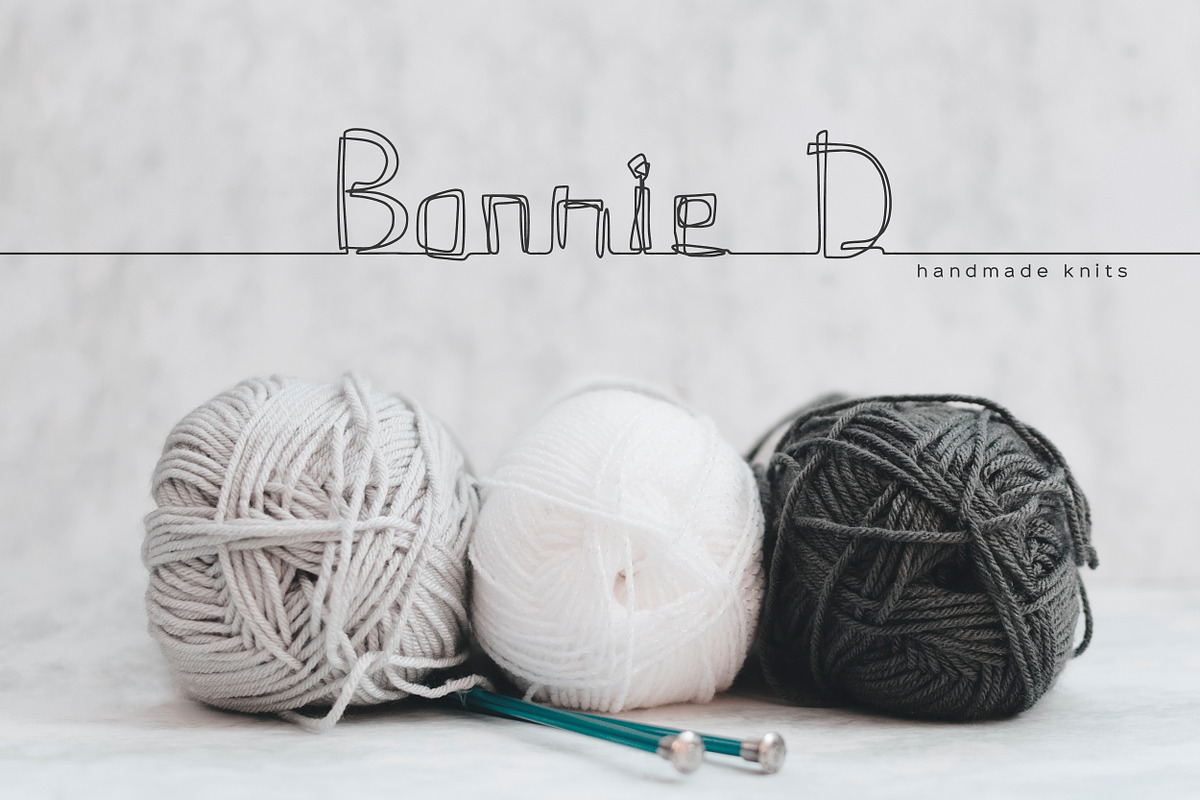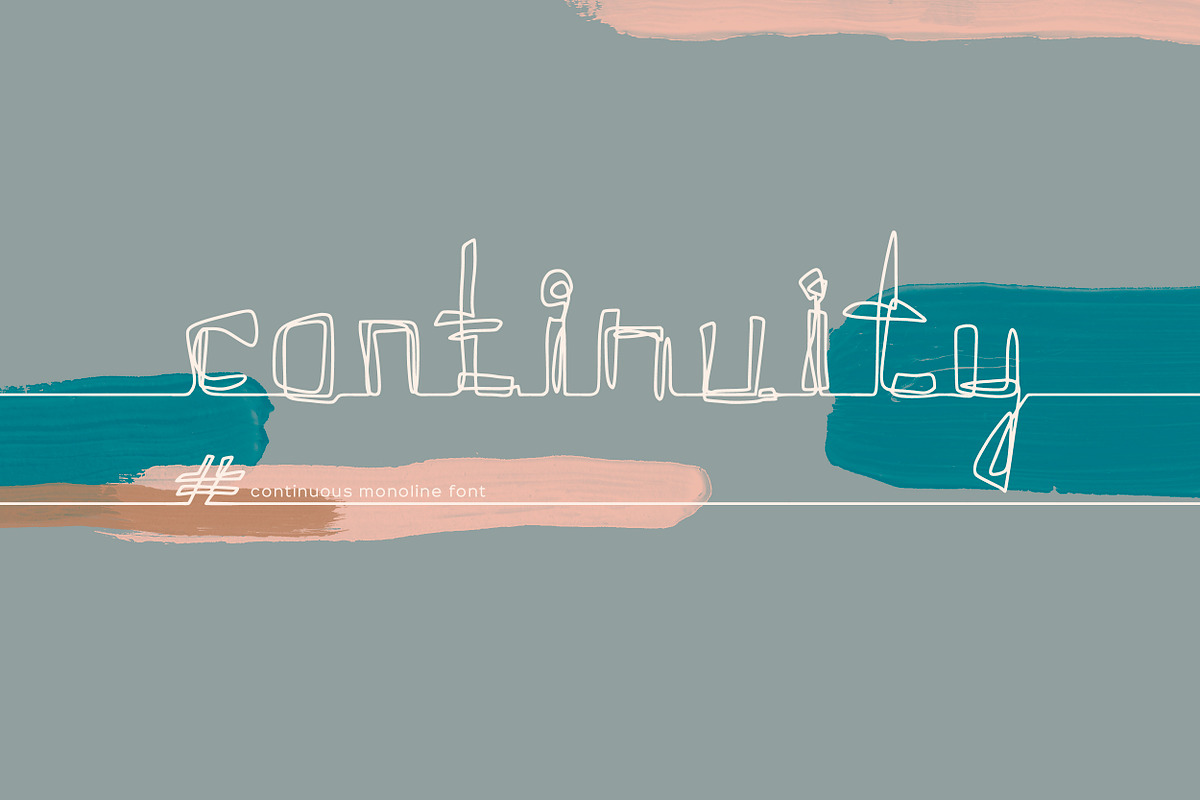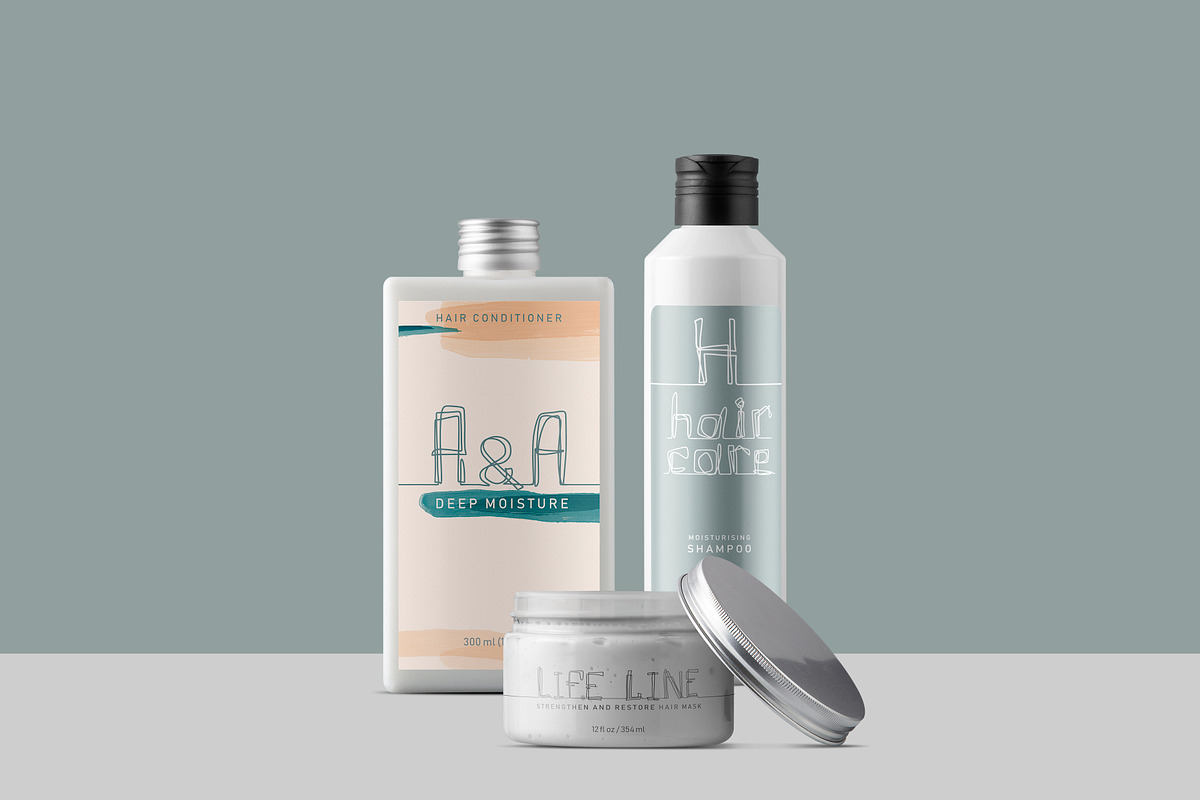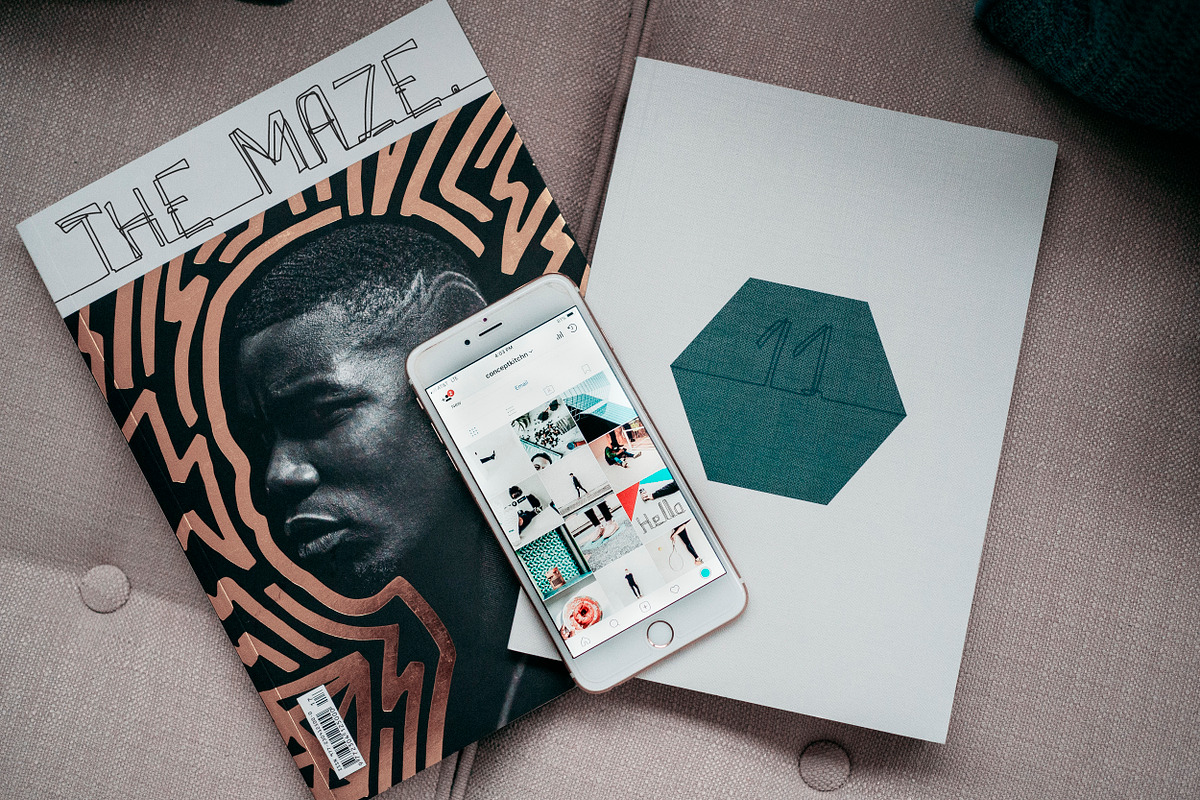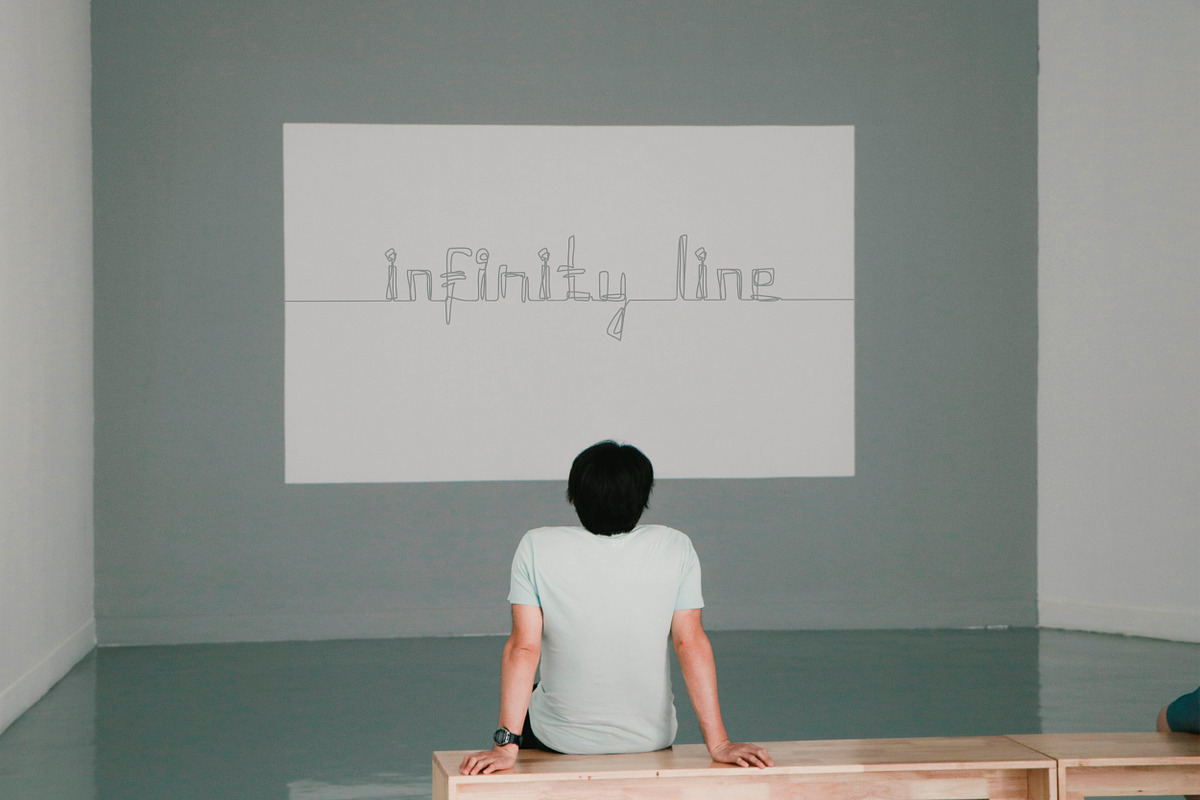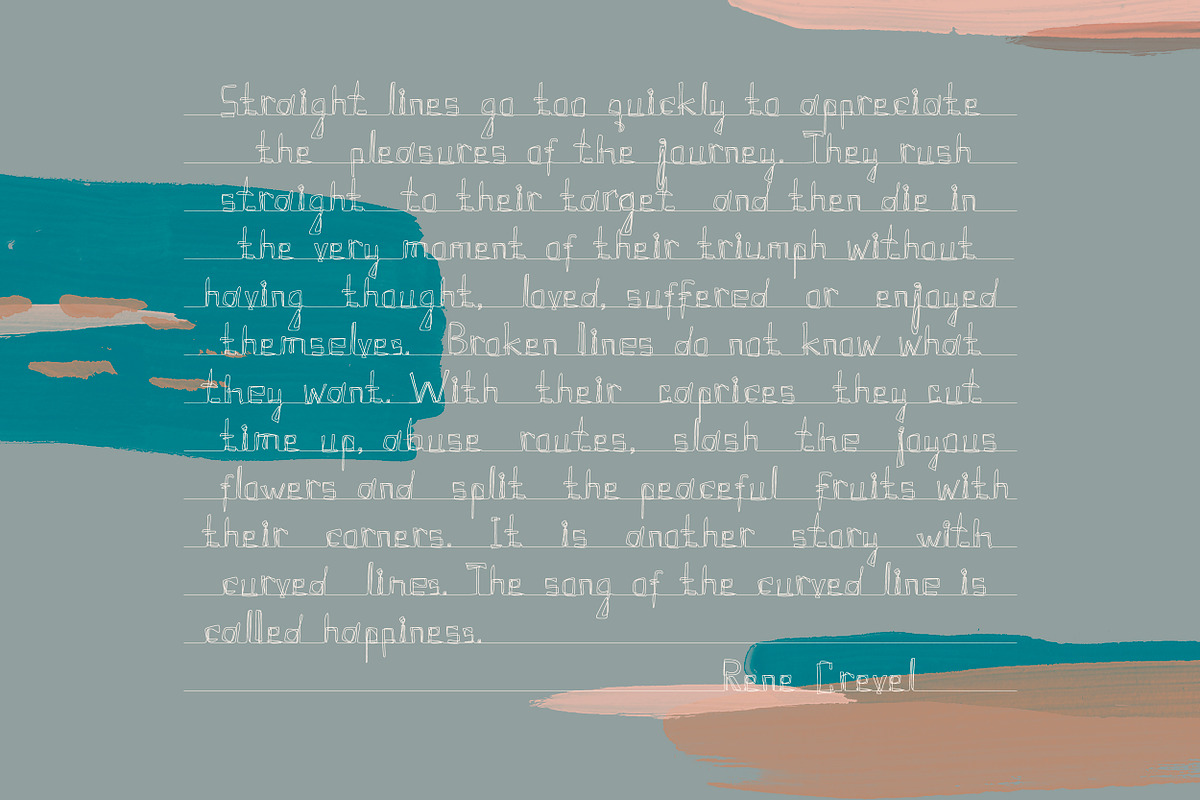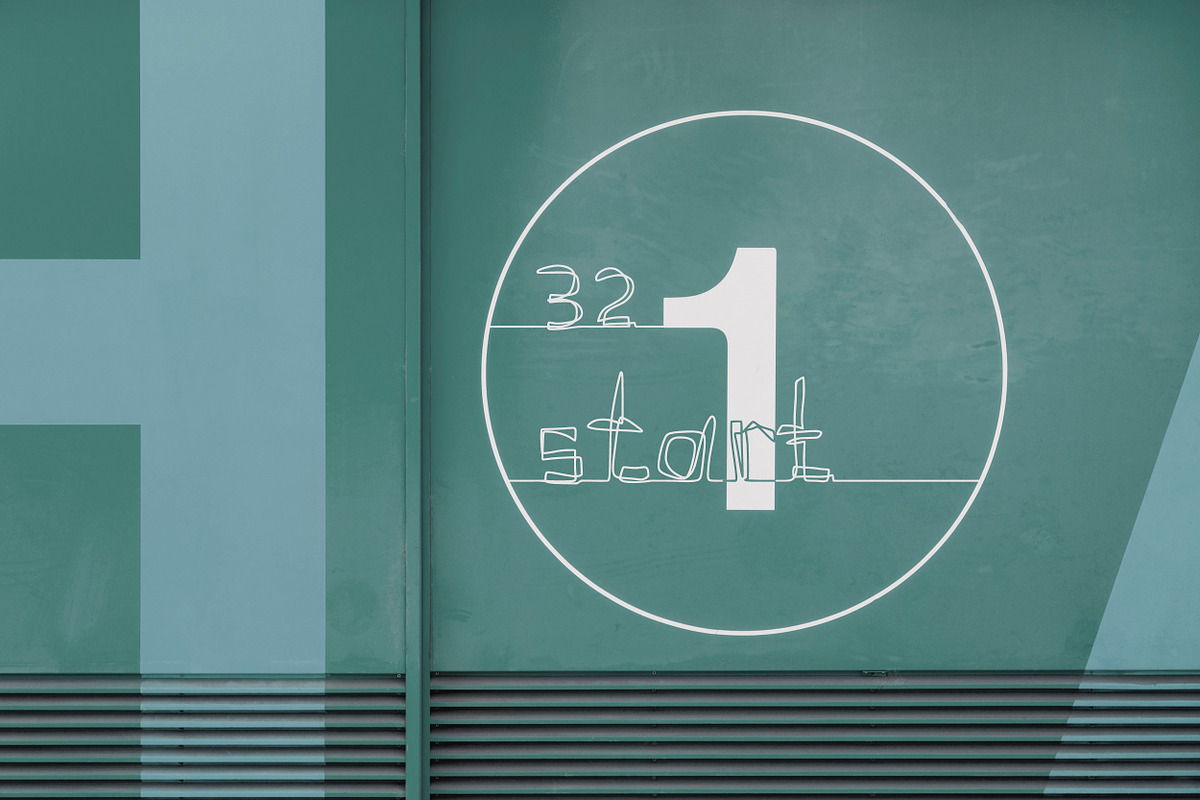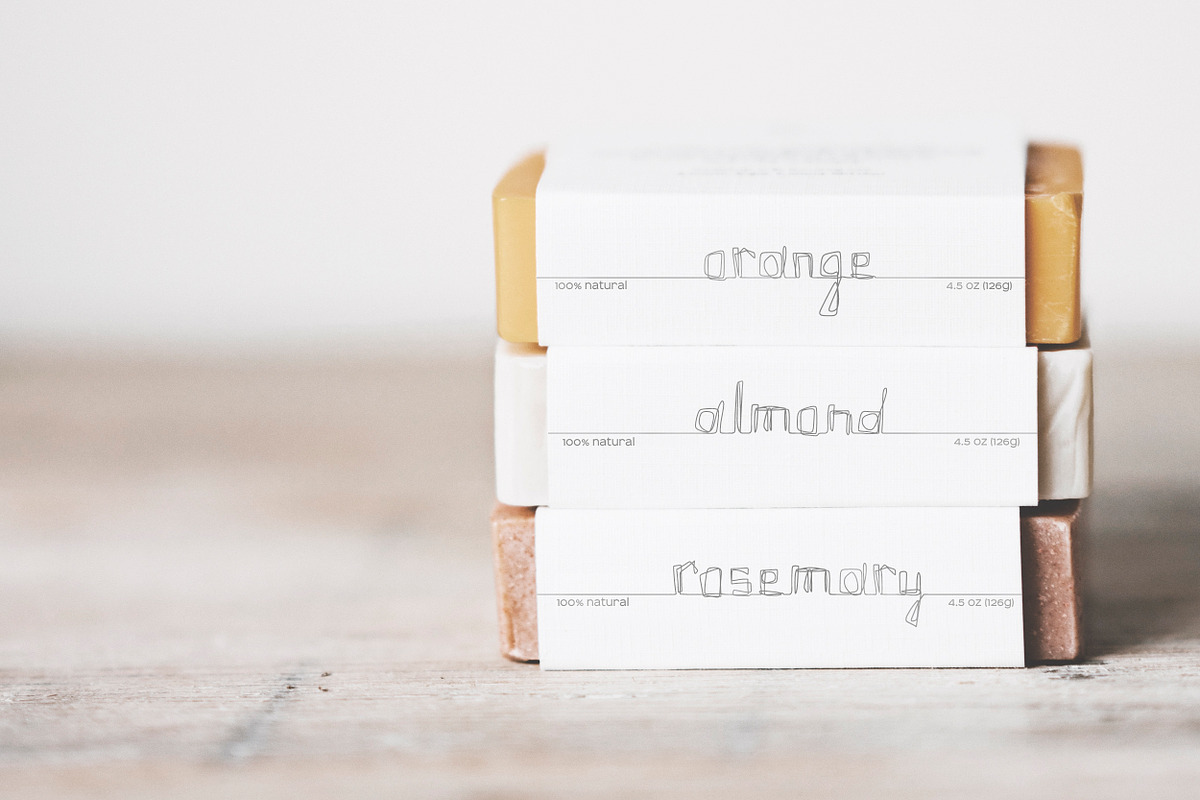
Continuity. One Line Font
Hello! I’m pleased to introduce my handwritten one line font Continuity.
This font has an interesting feature. It's continuous. All letters are written by one line.
Using Continuity you get one continuous line, which is folded into letters.
This font includes full set of lowercase, uppercase and numerals alternates to make your text as close to a natural handwritten script as possible.
It's perfect for logos, branding, packaging, magazines, social media, titles, birthday invitation, restaurant menu, greeting cards, web header, banner, and much more.